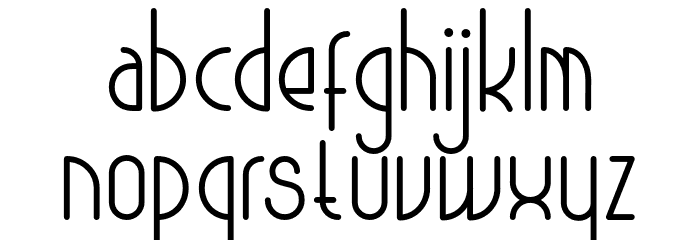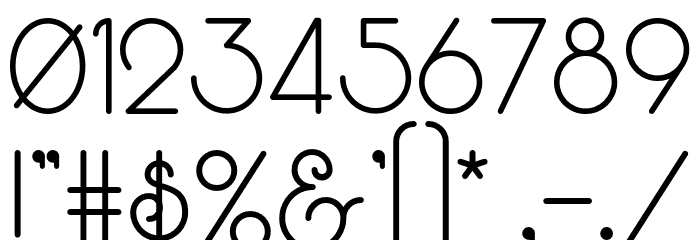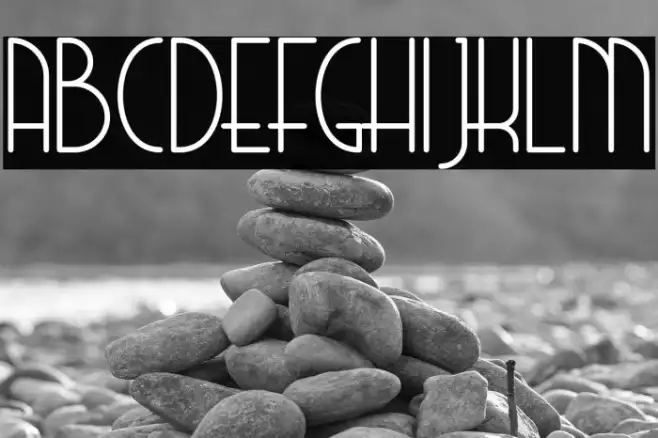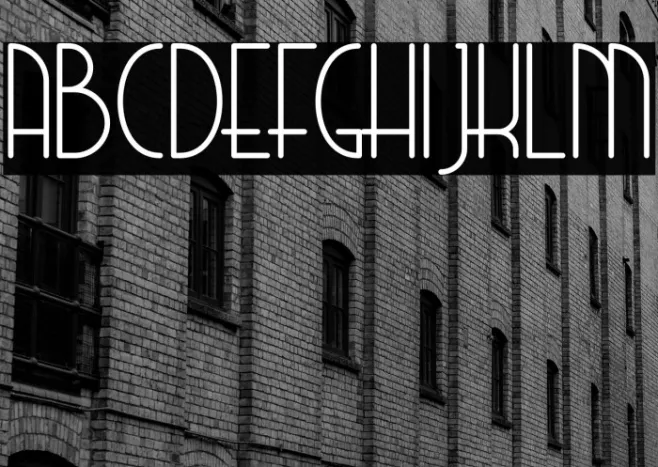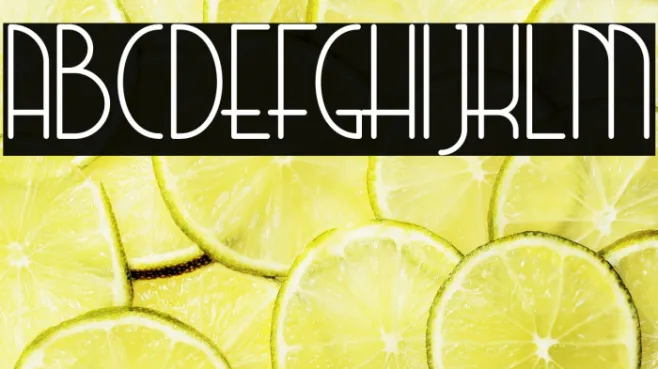
Baltimore Font
This font features a unique and modern design with a geometric and slightly condensed structure. The characters are composed of clean, continuous lines that create a sense of fluidity and elegance. The uppercase letters have a tall and narrow appearance, while the lowercase letters maintain a consistent style with slightly rounded edges. The numerals are distinct and align well with the overall aesthetic, providing a cohesive look. Special characters are creatively designed, adding a touch of sophistication. The font's minimalistic yet stylish approach makes it versatile for various design applications.
A modern, geometric font with clean lines and a slightly condensed style.
- Font: Baltimore
- Proposed Projects: Ideal for branding, logo design, modern posters, and digital media projects.